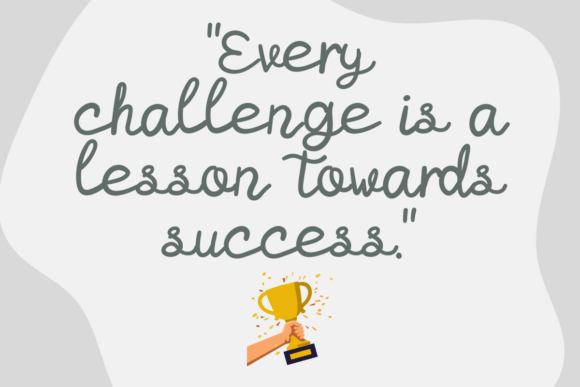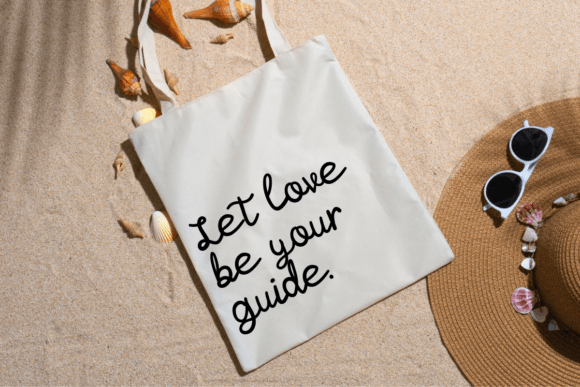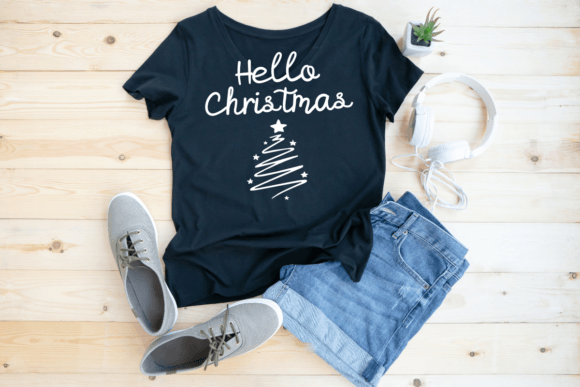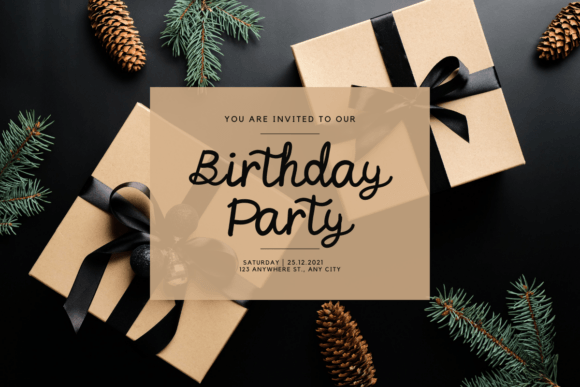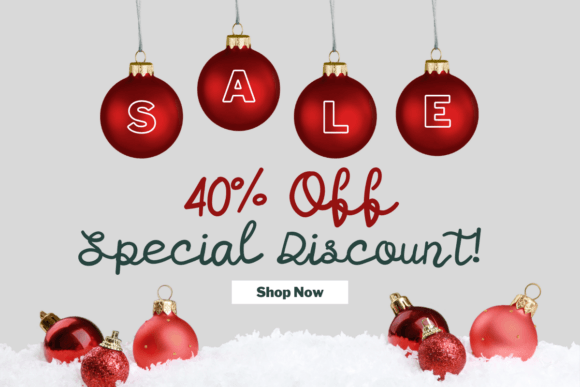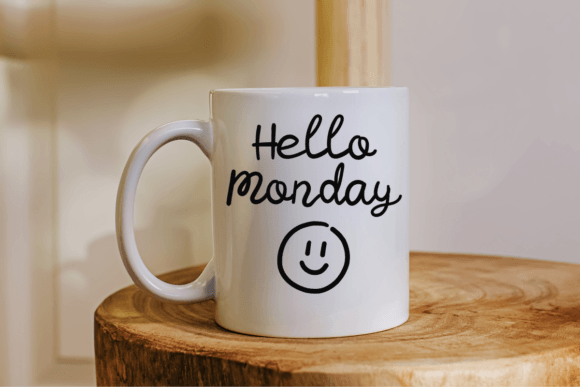
Introduction to Rabbit Script Font
Rabbit Script Font is a handwritten font, perfect for digital note-taking.
Its versatility makes it ideal for various projects such as Procreate designs, blog posts, logos, branding, digital planners, invitations, greeting cards, photo albums, and much more .
Key Features of Rabbit Script Font
Why Choose Rabbit Script Font?
Rabbit Script Font offers exceptional quality and versatility, making it a valuable addition to your design toolkit. Whether you’re creating for personal projects or commercial use, Rabbit Script Font delivers professional results.